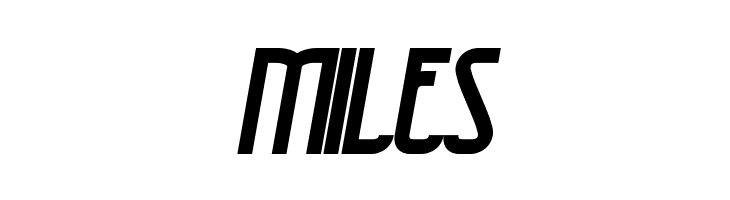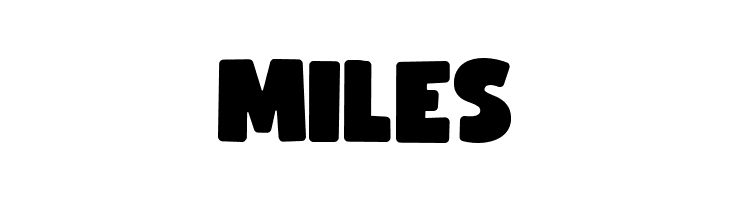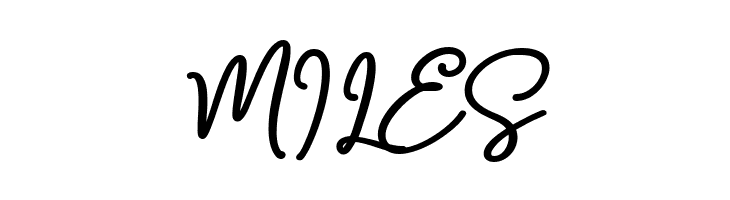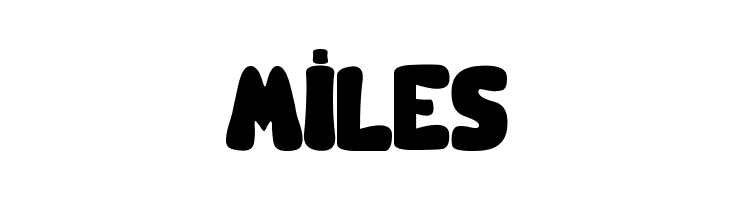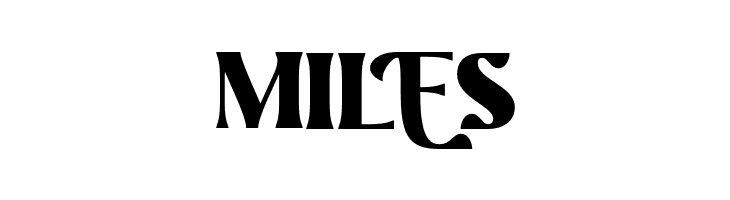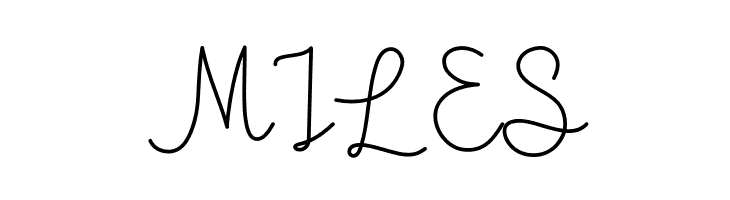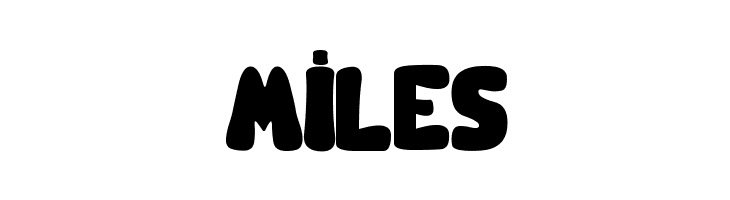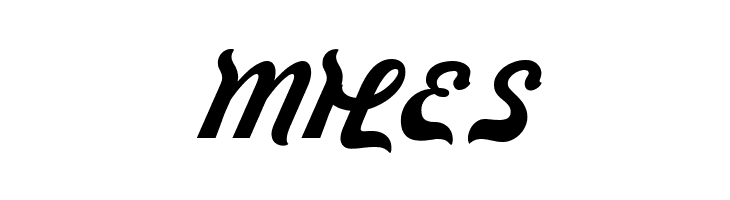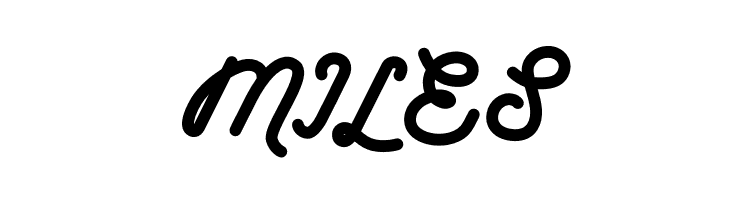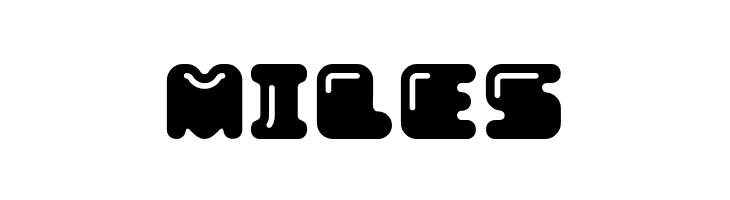
( Fonts by a Andrew Hart Dirt2.com - SickCapital. Personal-use only. For commercial use please contact owner. ) A bold, playful font with thick, rounded strokes and a friendly appearance. Download 244 Downloads@WebFont
( Fonts by Dirt2.com - SickCapital - Andrew Hart - Personal-use only. For commercial use please contact owner. ) A bold, playful font with rounded, hand-drawn characters. Download 26 Downloads@WebFont
( Fonts by a Andrew Hart Dirt2.com - SickCapital. Personal-use only. For commercial use please contact owner. ) A playful, hand-drawn font with a quirky, uneven style. Download 146 Downloads@WebFont
( Fonts by Dirt2.com - SickCapital - Andrew Hart - Personal-use only. For commercial use please contact owner. ) A playful, hand-drawn font with thin, irregular strokes and a whimsical style. Download 33 Downloads@WebFont
( Fonts by Alexa ) A bold, playful font with thick, rounded characters and a friendly vibe. Download 1628 Downloads@WebFont
( Fonts by Muhammad Sirojuddin - lettersiro.com - Personal-use only. For commercial use please contact owner. ) A bold, expressive script font with fluid, cursive letterforms. Download 159 Downloads@WebFont
( Fonts by PutraCetol Studio - www.putracetol.com - Personal-use only. For commercial use please contact owner. ) A bold, playful font with rounded, chunky letterforms and minimal contrast. Download 30 Downloads@WebFont
( Fonts by Aluyeah Studio - Personal-use only. For commercial use please contact owner. ) A bold, dynamic font with thick strokes and unique serifs, perfect for impactful designs. Download 127 Downloads@WebFont
( Fonts by QueenType ) Bold, playful handwritten font. Download 128 Downloads@WebFont
( Fonts by imagex - Personal-use only. For commercial use please contact owner. ) A bold, geometric typeface with a modern and assertive style. Download 838 Downloads@WebFont
( Fonts by Mostafizur Rahman - Personal-use only. For commercial use please contact owner. ) A bold, geometric font with a modern and assertive style. Download 210 Downloads@WebFont
( Fonts by Hamzah Muhamad Ihsan - Typesthetic Studio - Personal-use only. For commercial use please contact owner. ) A bold, playful handwritten font with thick strokes and rounded edges. Download 83 Downloads@WebFont
( Fonts by www.studiotypo.com - Personal-use only. For commercial use please contact owner. ) A bold, geometric font with strong, block-like characters. Download 94 Downloads@WebFont
( Fonts by www.studiotypo.com - Personal-use only. For commercial use please contact owner. ) A bold, italicized font with a modern and dynamic style. Download 81 Downloads@WebFont
( Fonts by Hamzah Muhamad Ihsan - Typesthetic Studio - Personal-use only. For commercial use please contact owner. ) A playful and whimsical script font with flowing, interconnected letters. Download 45 Downloads@WebFont
( Fonts by www.studiotypo.com - Personal-use only. For commercial use please contact owner. ) A bold, geometric outline font with a modern and impactful style. Download 431 Downloads@WebFont
( Fonts by summerizze ) Playful handwritten font with rounded edges. Download 171 Downloads@WebFont
( Thirtypath - www.thirtypath.com ) A bold, expressive script font with flowing, dynamic strokes. Download 76 Downloads@WebFont
( Thirtypath - www.thirtypath.com ) A bold, expressive script font with elegant, flowing strokes. Download 202 Downloads@WebFont
( Fonts by fortunes co - Ramandhani Nugraha - Personal-use only. For commercial use please contact owner. ) A bold, semi-condensed slab serif font with high contrast and strong presence. Download 43 Downloads@WebFont
( Fonts by Kotak Kuning Studio - kotakkuning.com - Personal-use only. For commercial use please contact owner. ) A bold, playful font with rounded edges and a cartoonish style. Download 49 Downloads@WebFont
( Fonts by Hugefonts - Personal-use only. For commercial use please contact owner. ) A playful, handwritten font with smooth, rounded edges and a casual style. Download 44 Downloads@WebFont
( Fonts by Hugefonts - Personal-use only. For commercial use please contact owner. ) A playful, casual handwritten font with smooth, rounded edges. Download 33 Downloads@WebFont
( Fonts by Letterhend Studio - Hendry Juanda - Personal-use only. For commercial use please contact owner. ) A bold, dynamic script font with thick, flowing strokes and a modern flair. Download 45 Downloads@WebFont
( Fonts by Jaime Rangel Castro - Personal-use only. For commercial use please contact owner. ) A bold, playful font with rounded, bubbly letterforms. Download 36 Downloads@WebFont
( Fonts by Jaime Rangel Castro - Personal-use only. For commercial use please contact owner. ) A playful, bold font with thick, rounded characters and a cartoonish style. Download 21 Downloads@WebFont